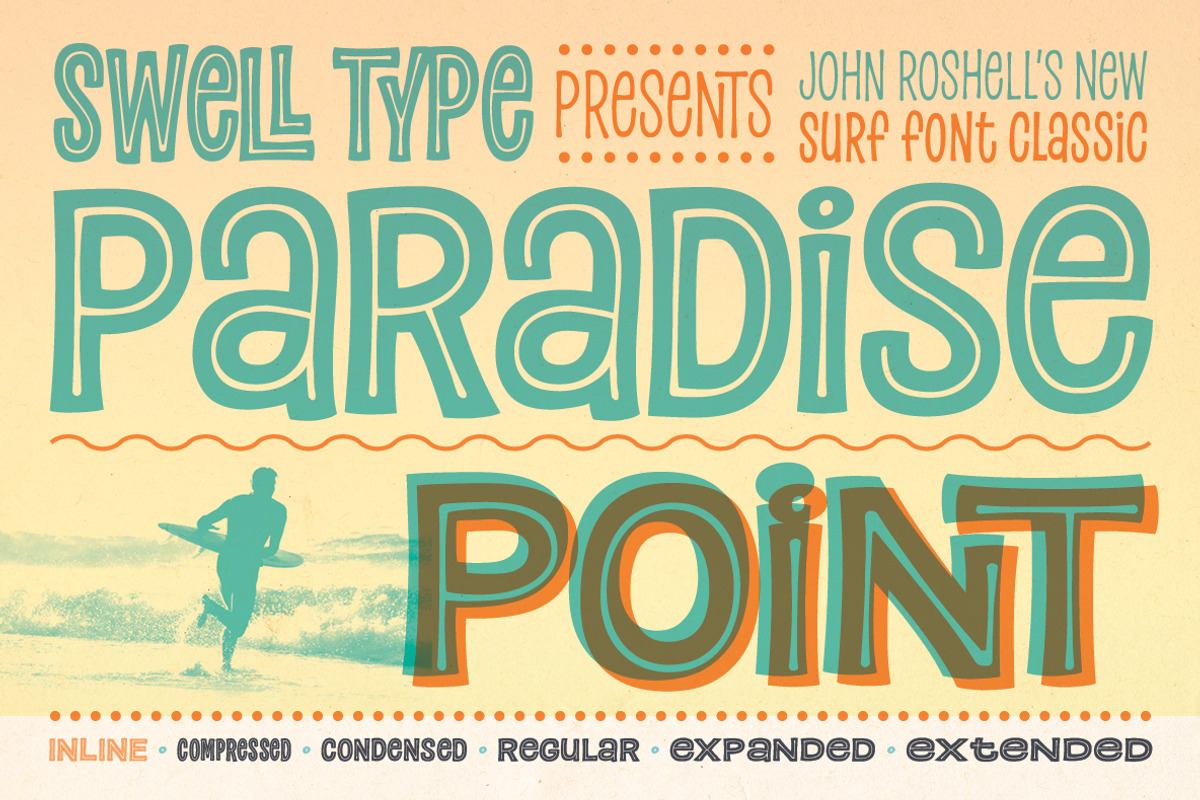
Paradise Point Inline Surf Fonts Free Download is a vibrant, retro-inspired typeface that captures the carefree spirit of beach life and surf culture. With its bold inline style and laid-back vibe, this font is perfect for summer branding, surf shop logos, event posters, and coastal-themed apparel.
Designed to evoke sunsets, sea breezes, and vintage postcards, Paradise Point adds a nostalgic yet fresh energy to any project. Whether you’re creating signage for a beach café or social media graphics for a tropical getaway, this font delivers that endless summer feeling.